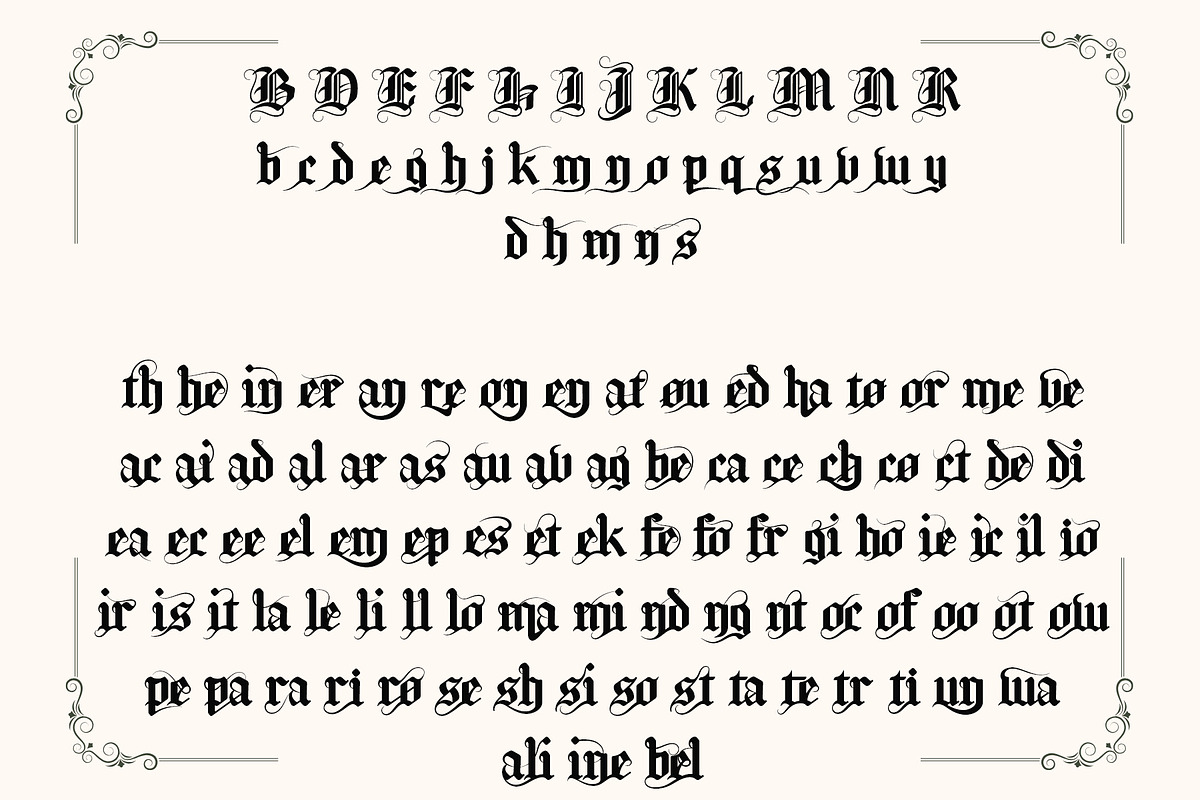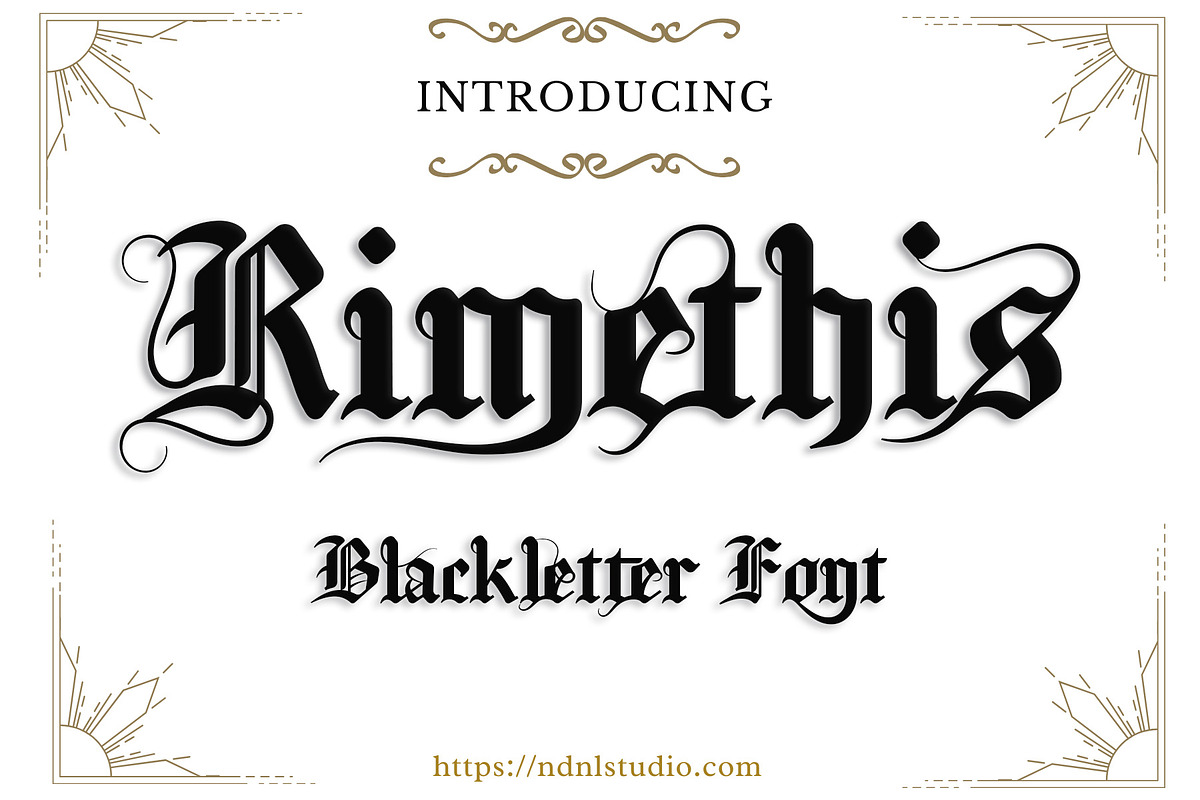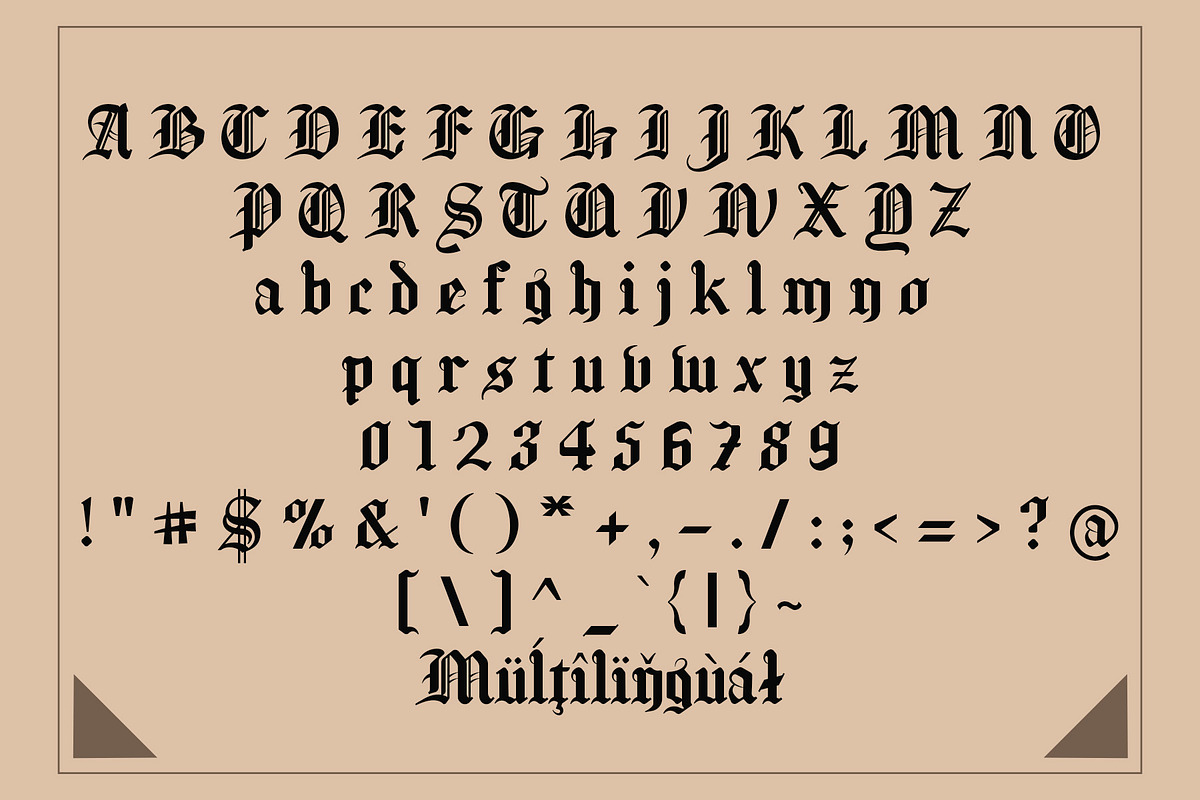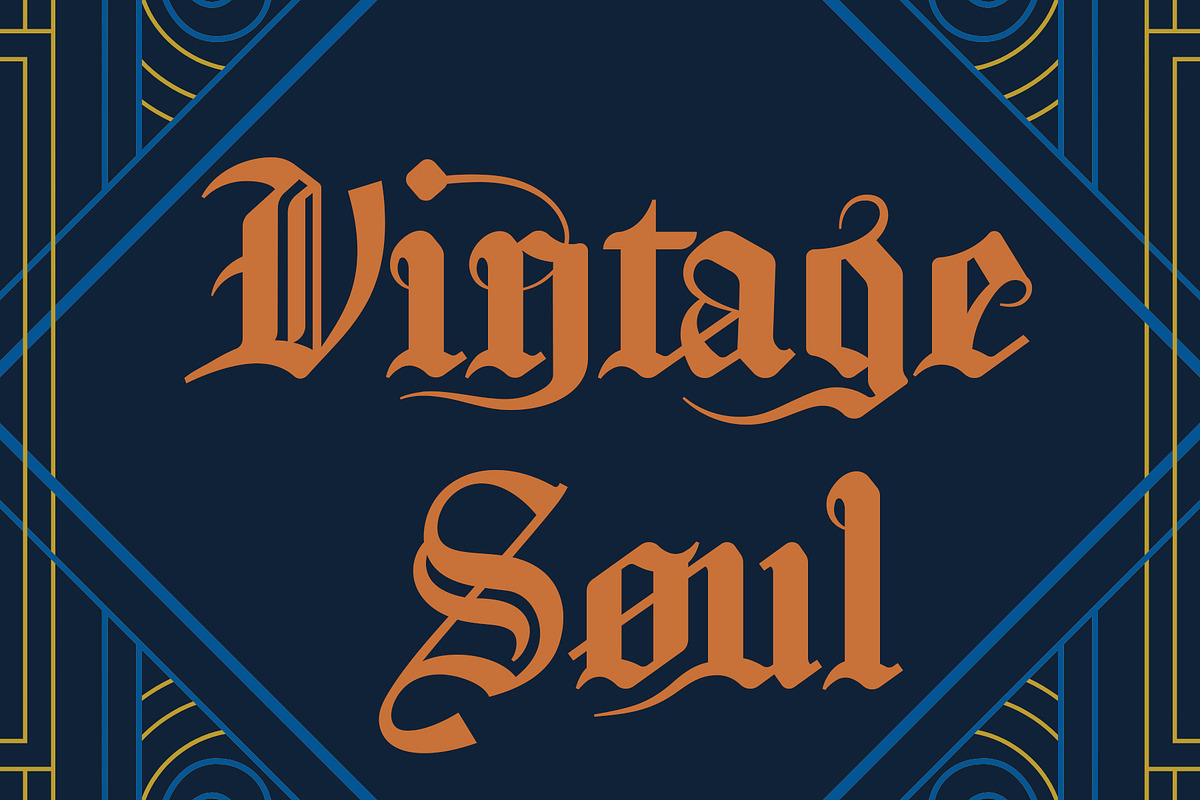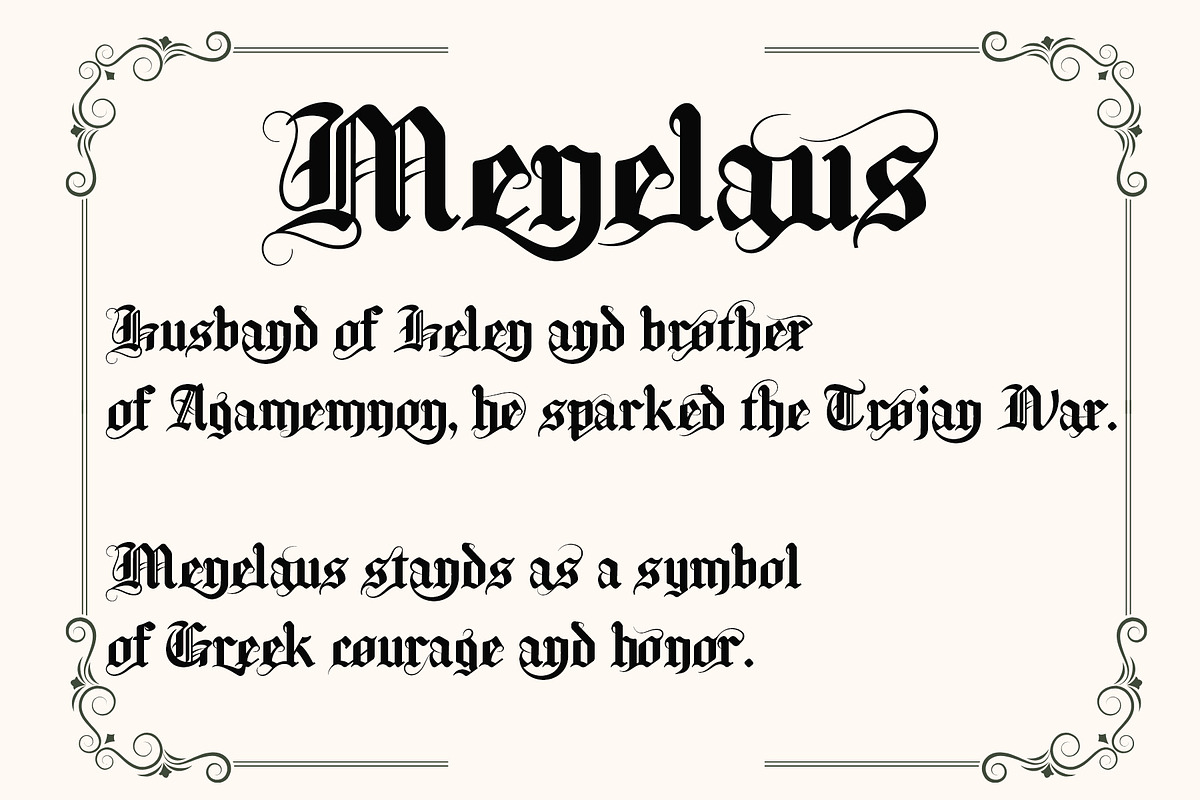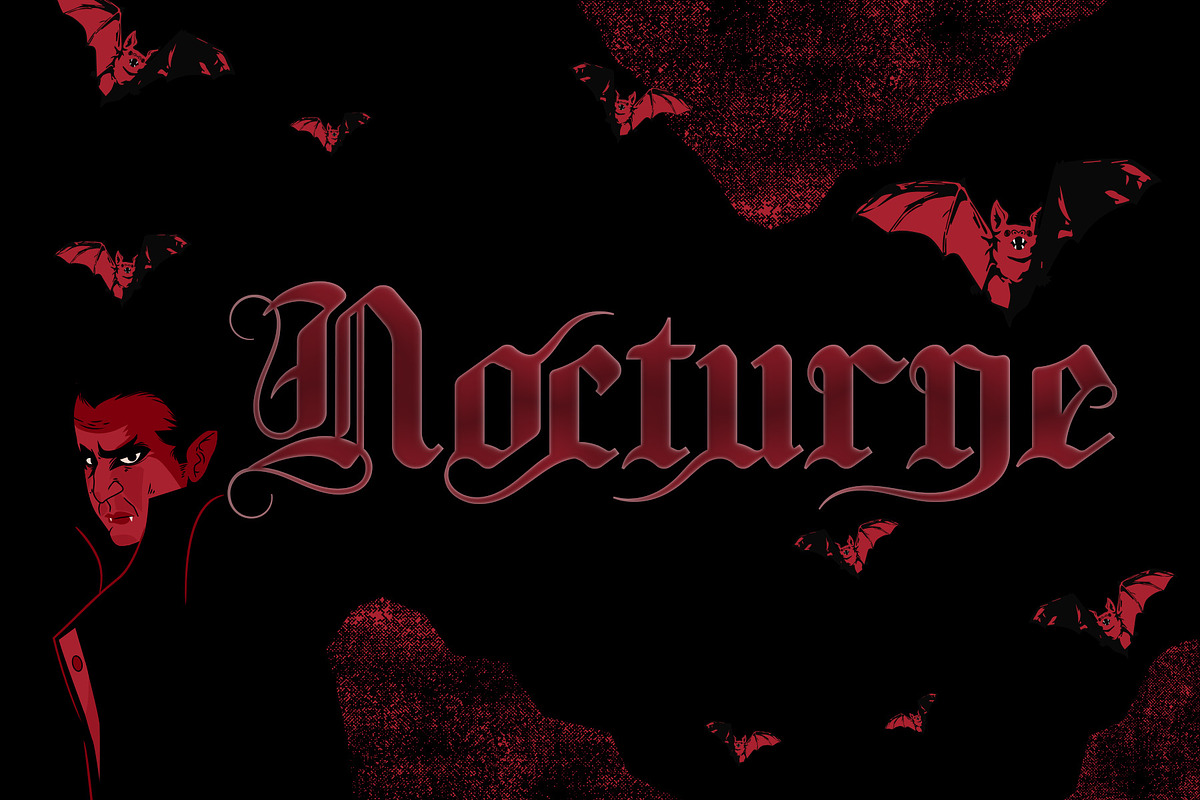
Rimethis – Blackletter Font
Introducing Rimethis!
Rimethis is a stunning Blackletter font that embodies the essence of gothic elegance and timeless craftsmanship. With its dramatic curves and sharp edges, it breathes life into an atmosphere of mystery and enchantment — perfect for Halloween, dark-themed branding, horror titles, tattoos, and vintage-style projects. Each letter carries the whisper of old legends and forgotten tales — making Rimethis not just a font, but a story written in ink and darkness.